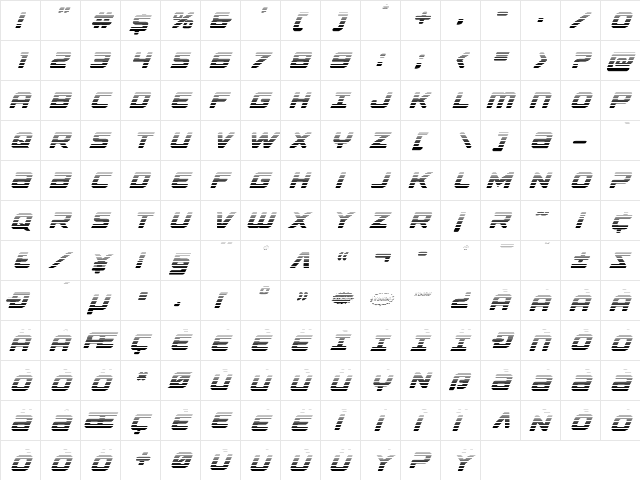
Falcon Punch Gradient Regular
Design Context for Falcon Punch Gradient Typeface
Falcon Punch Gradient is a composed and adaptable typeface that performs quietly and consistently across a wide range of design contexts.
Pro Tip: Use Falcon Punch Gradient in both headline and body roles to test its range before committing to a single application.